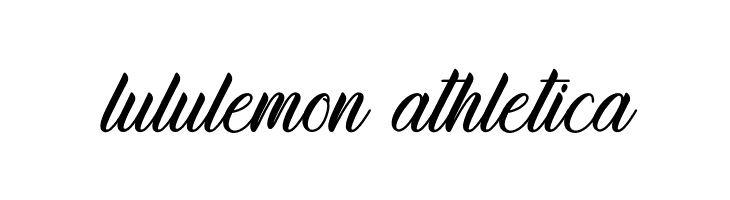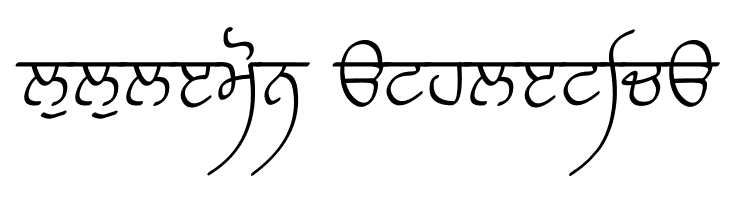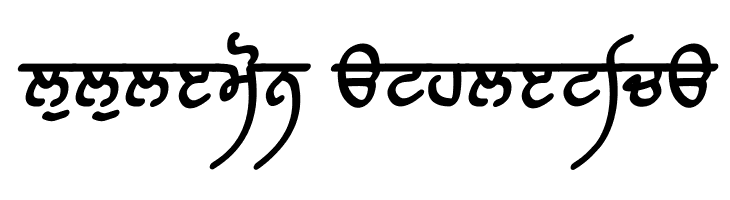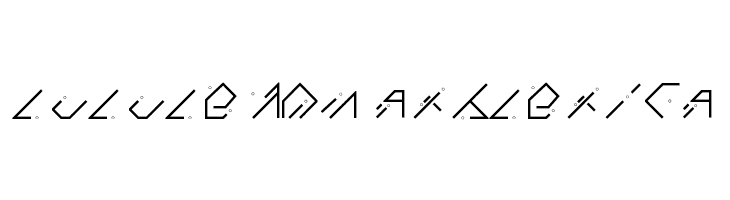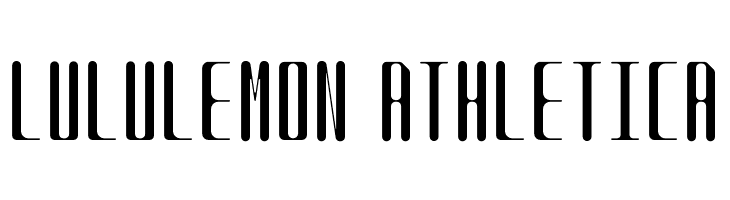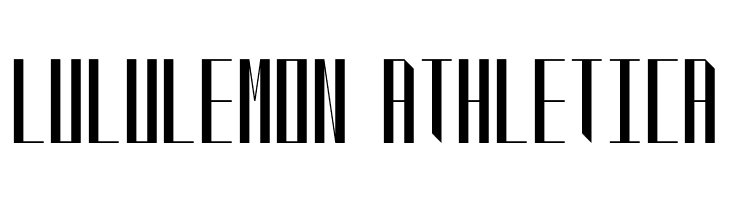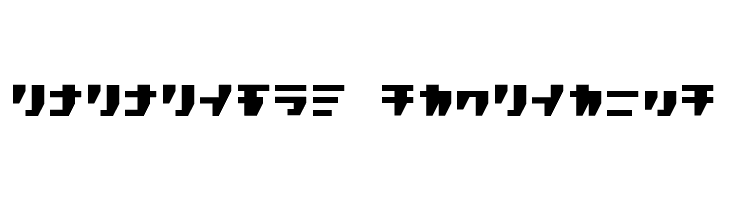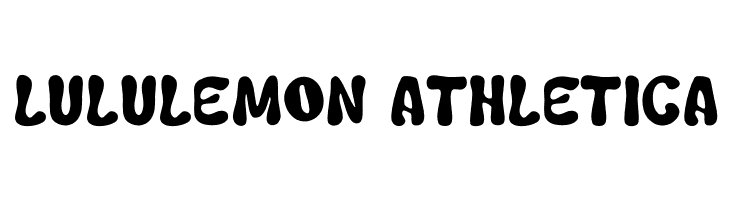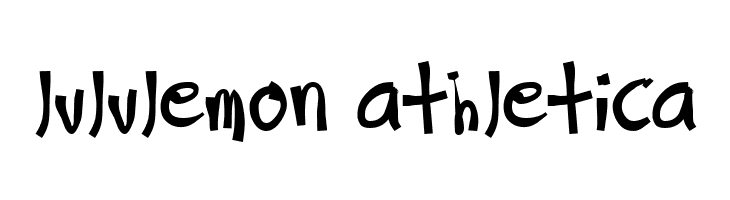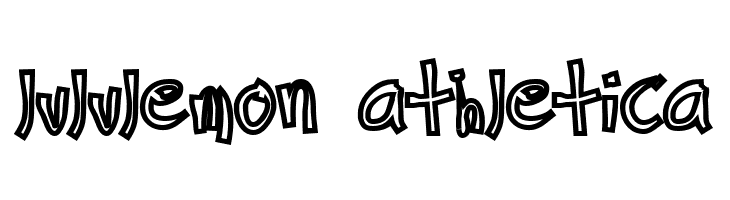
A modern, geometric font with rounded edges and consistent stroke width.
A modern, geometric font with a square-like structure and consistent design.
A modern, italicized font with a sleek and futuristic design.
A modern, italicized font with rounded edges and consistent line thickness.
A modern, geometric font with rounded edges and consistent character width.
A bold, geometric font with sharp angles and a modern aesthetic.
A modern, rounded, and sharp font with elongated, narrow characters.
Playful and vibrant icons with a cartoonish style.
A bold, playful font with rounded, bubbly characters.
A playful and energetic script font with bold, rounded strokes.
A vintage, distressed typewriter-style font with irregular edges and a handcrafted feel.
An elegant script font with intricate swirls and flourishes.
A bold, distressed typewriter-style font with a vintage feel.
An elegant script font with fluid, interconnected strokes and sophisticated flourishes.
A dynamic, scribbled font with sharp, angular strokes and irregular forms.
A futuristic, geometric font with angular lines and a tech-inspired design.
A bold, distressed font with a rugged, vintage appearance.
A bold, hand-painted style font with textured, expressive strokes.
Cartoon vignette font with playful, hand-drawn scenes.
A futuristic, segmented font with a digital, LED-inspired design.
A bold, eroded font with a gritty, vintage appearance.
A bold, dynamic font with sharp, angular edges and a playful style.
A modern, monospaced font with geometric shapes and consistent stroke weight.
A bold, expressive handwritten font with dynamic and playful letterforms.
A playful, hand-drawn font with hollow interiors and a graffiti-like aesthetic.
A bold and expressive font with thick strokes and dynamic curves.
A bold, expressive font with a blend of traditional and modern elements.
A graceful and flowing script font with elegant curves and consistent stroke width.
A classic and elegant script font with consistent strokes and graceful curves.